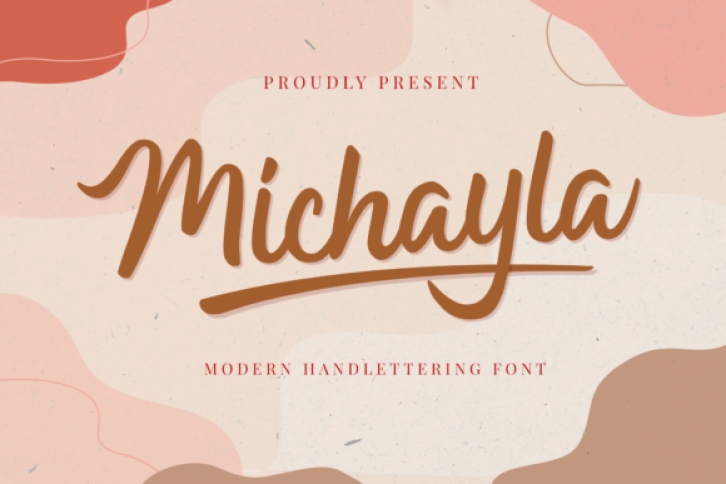
Michayla is a sweet, balanced and delicate handwritten font. It is perfectly suited for a wide variety of projects, so add it confidently and you will love the results!